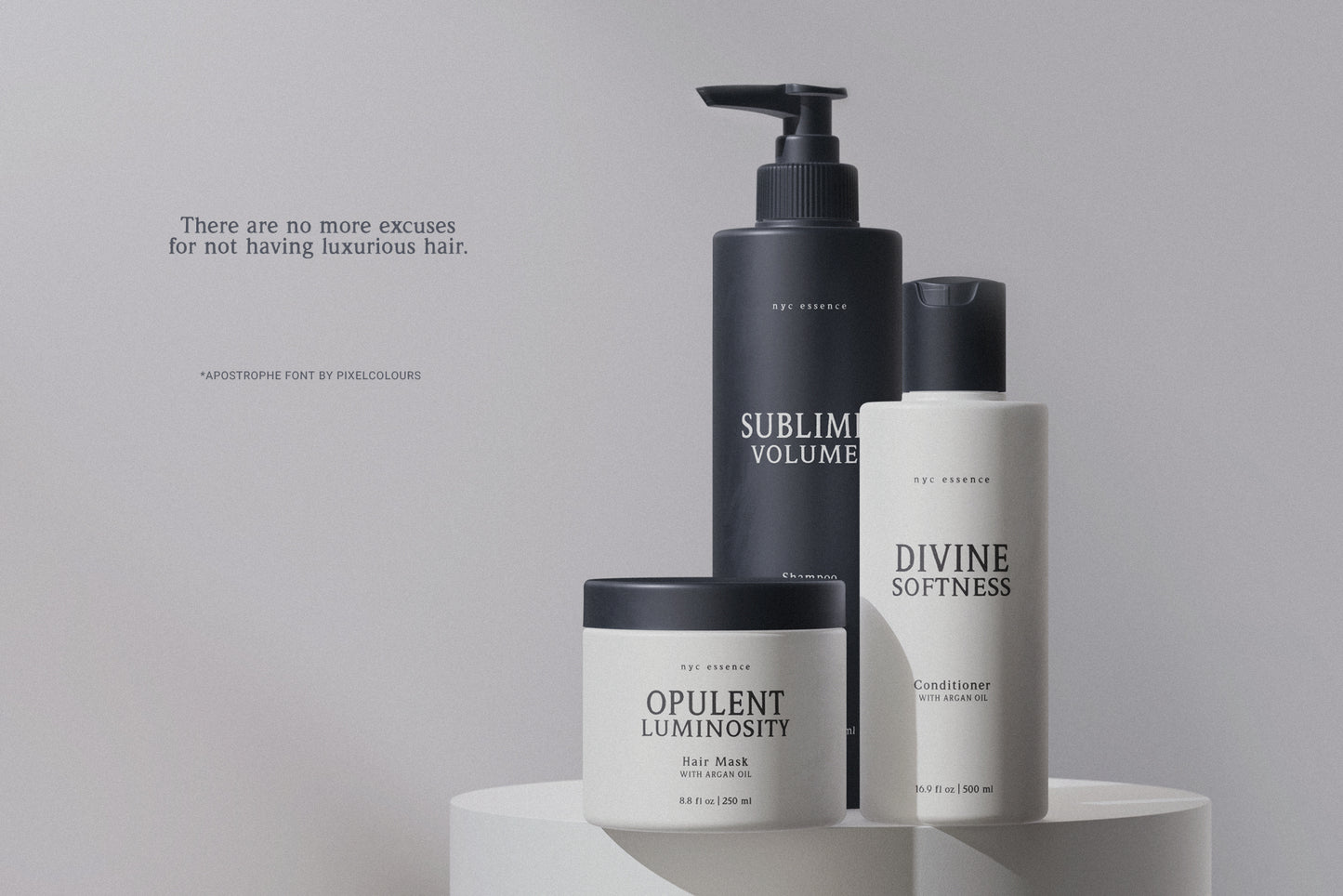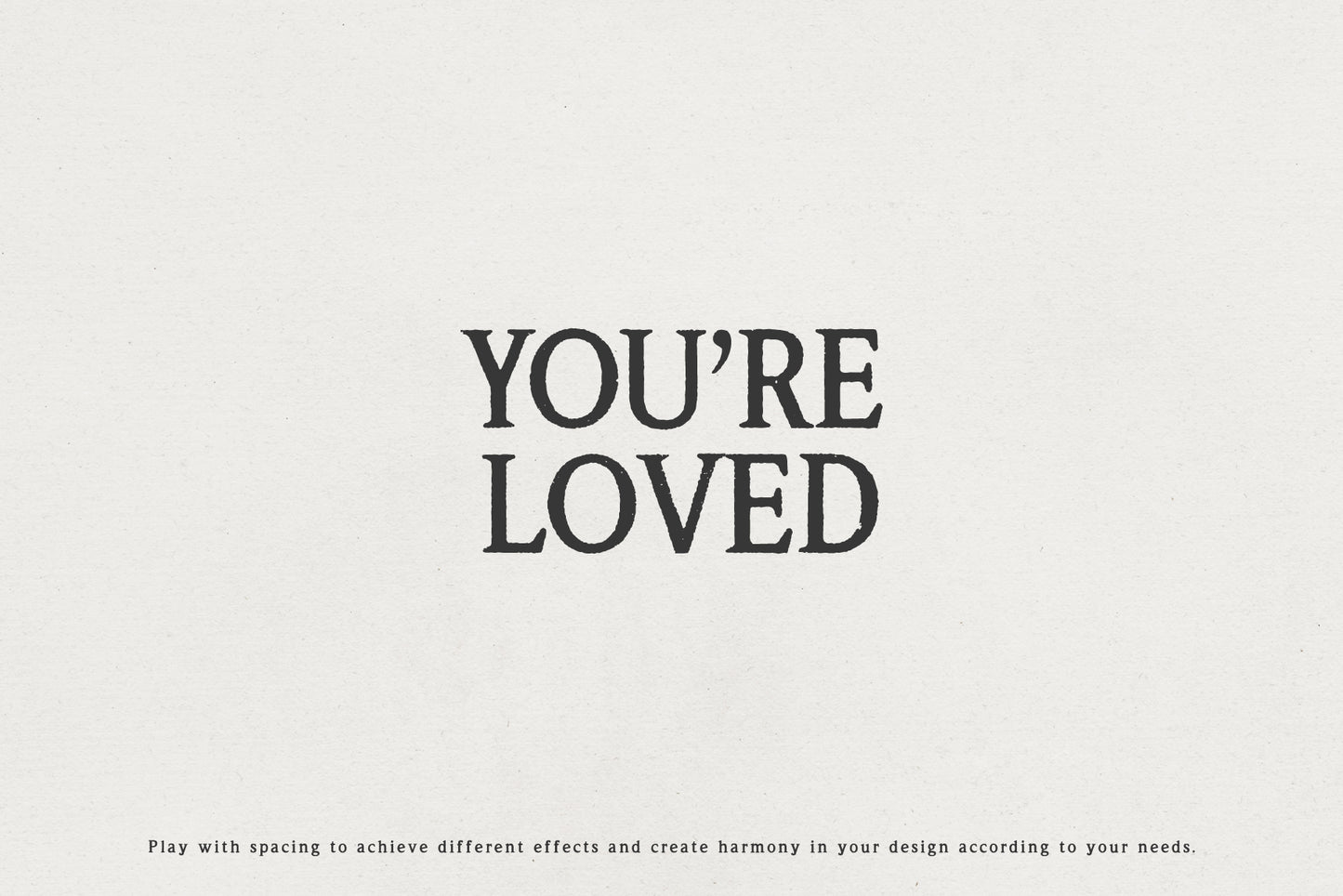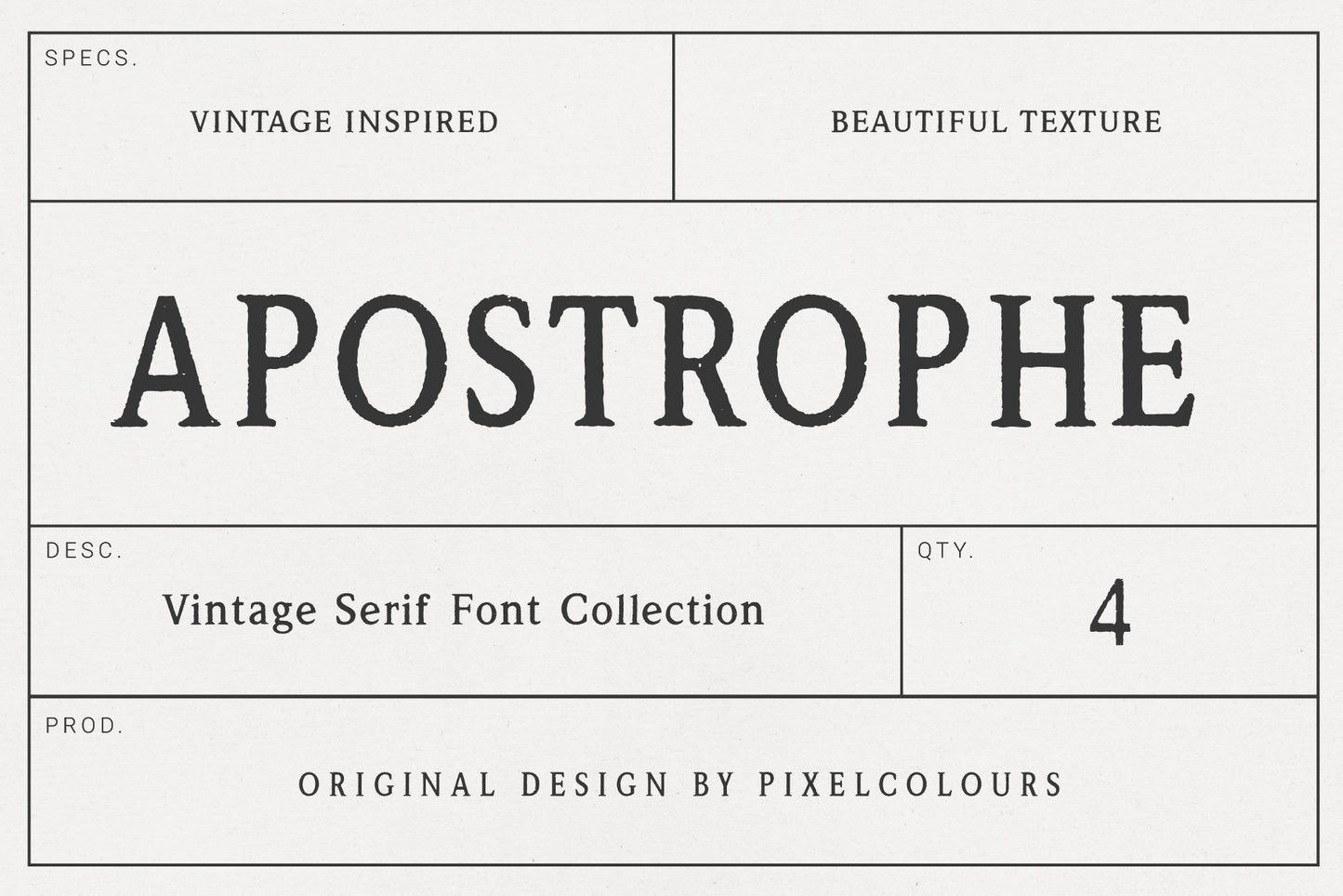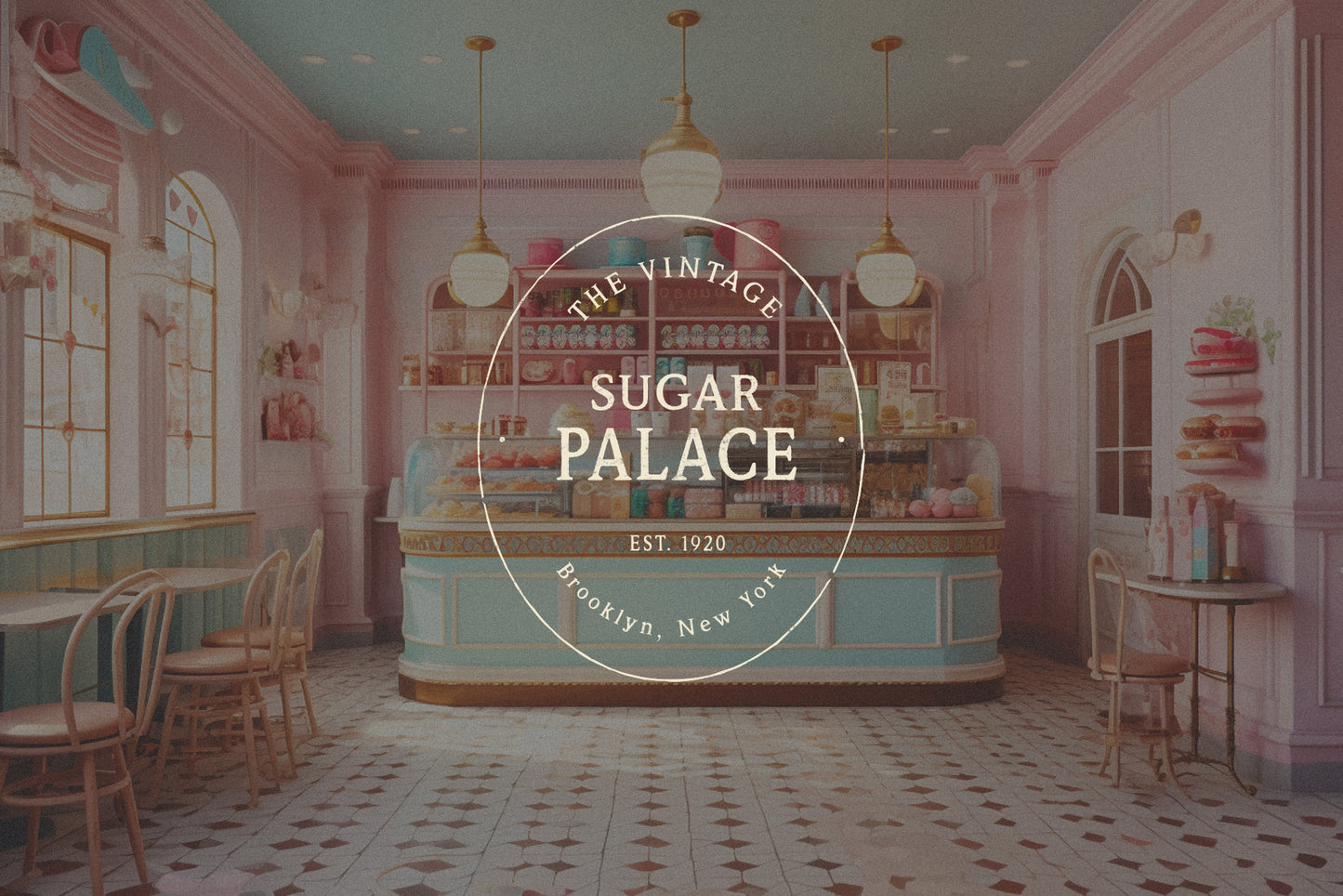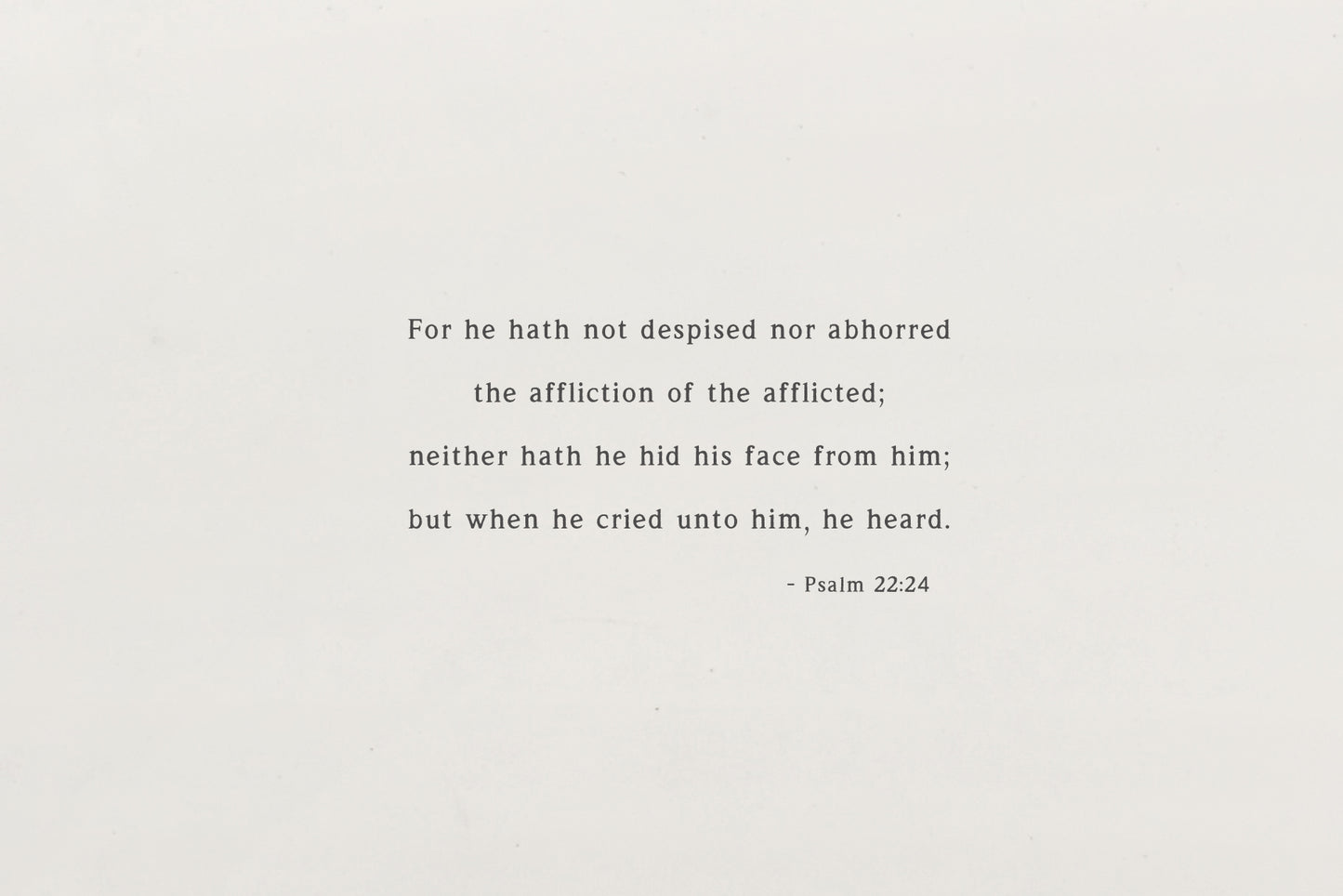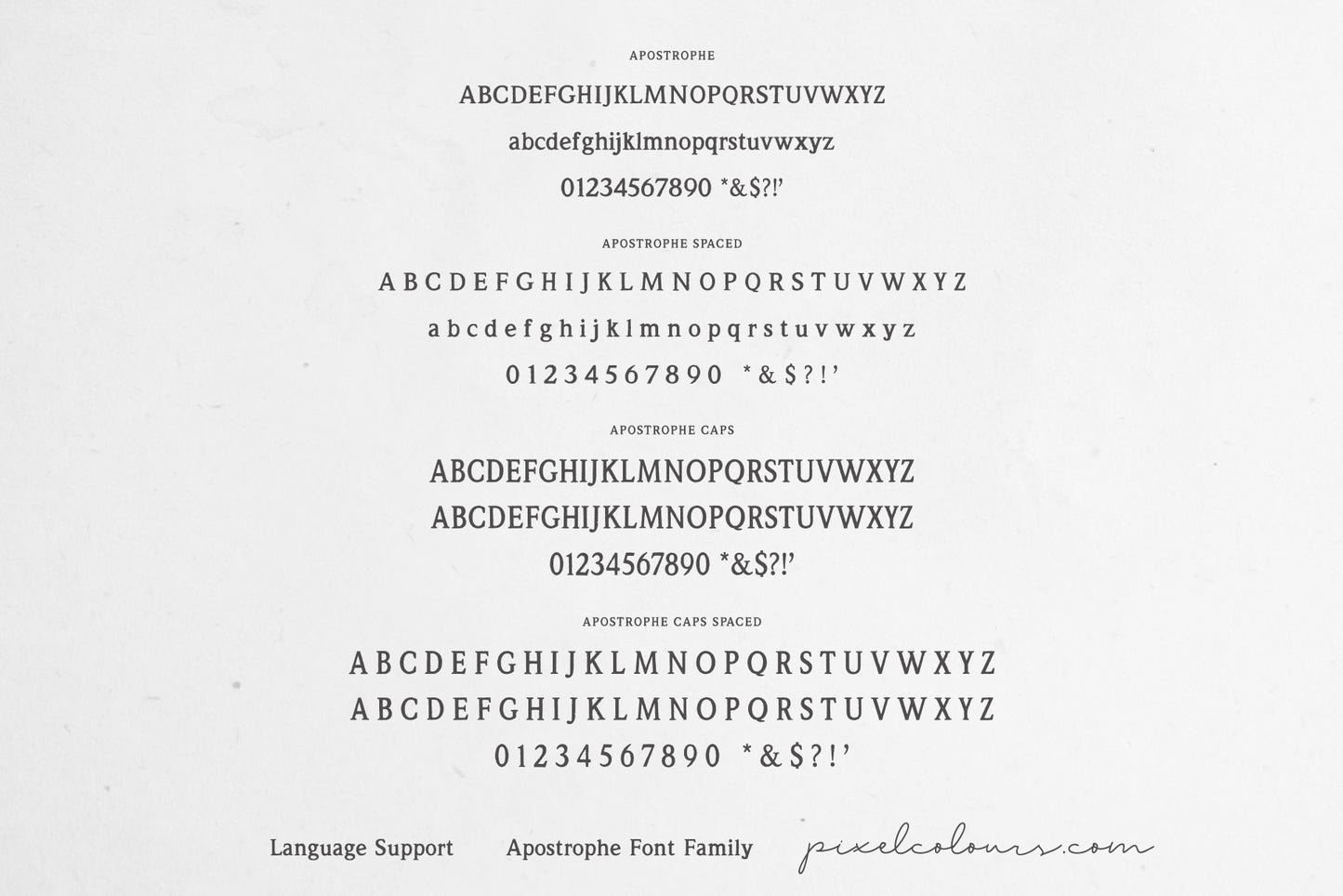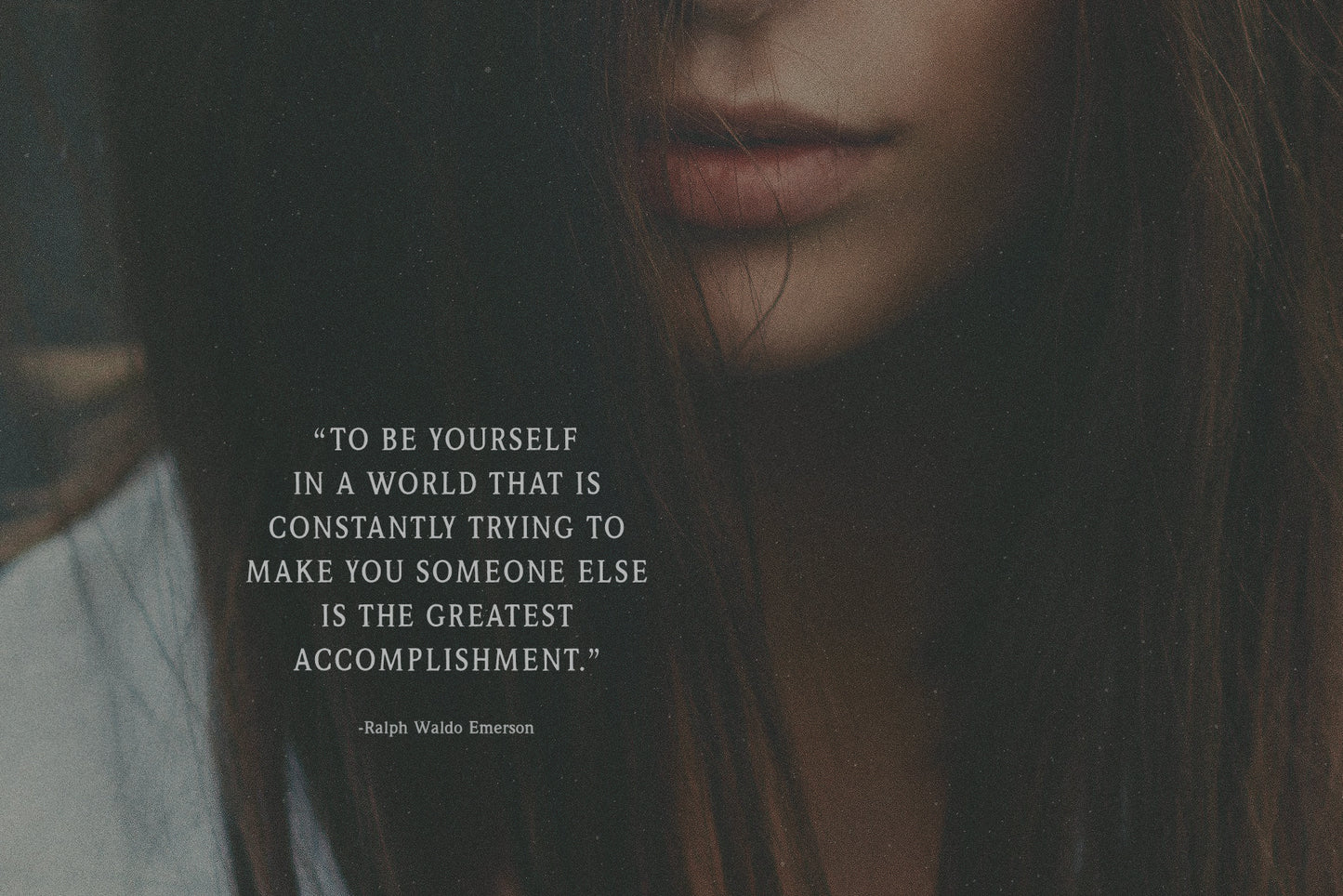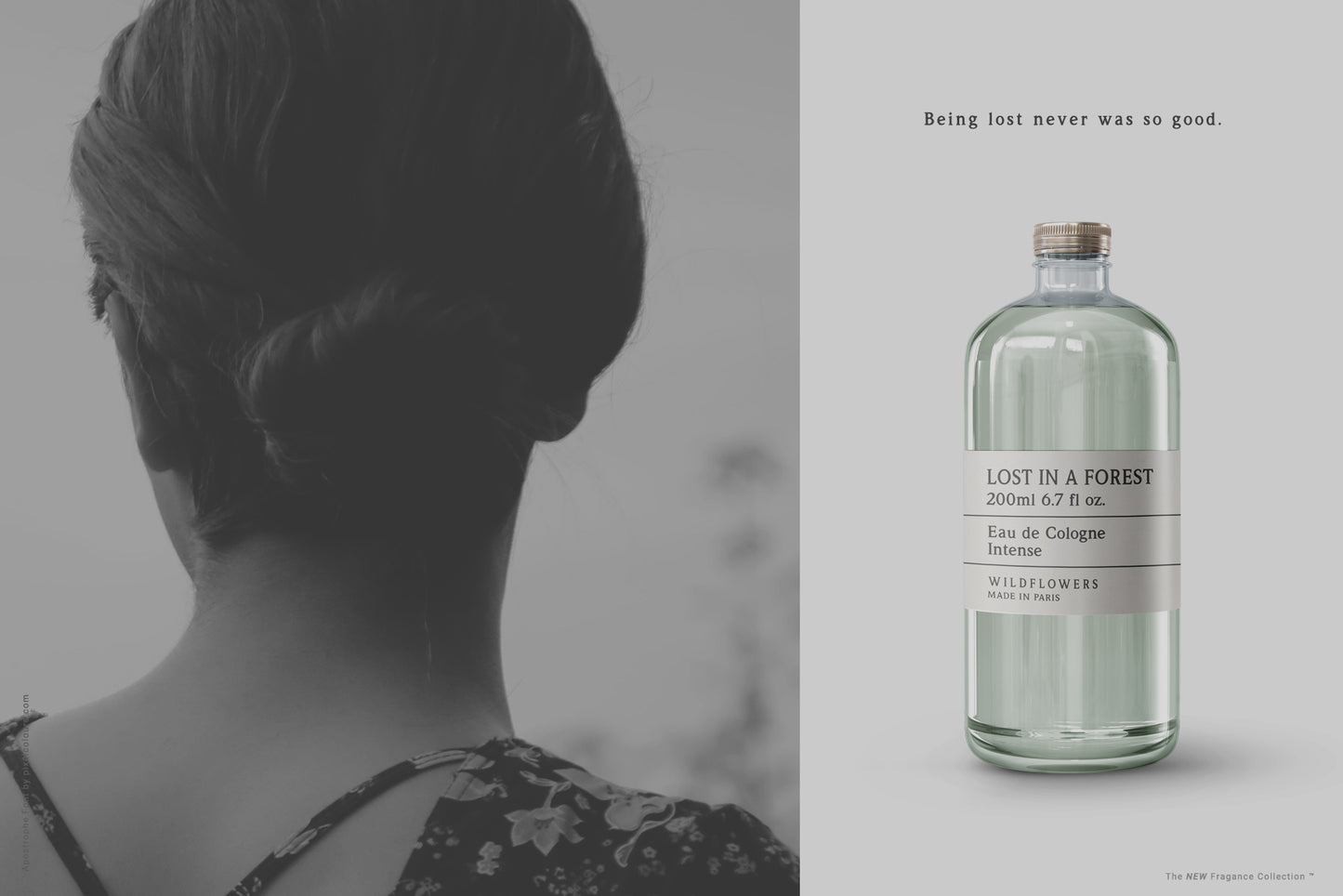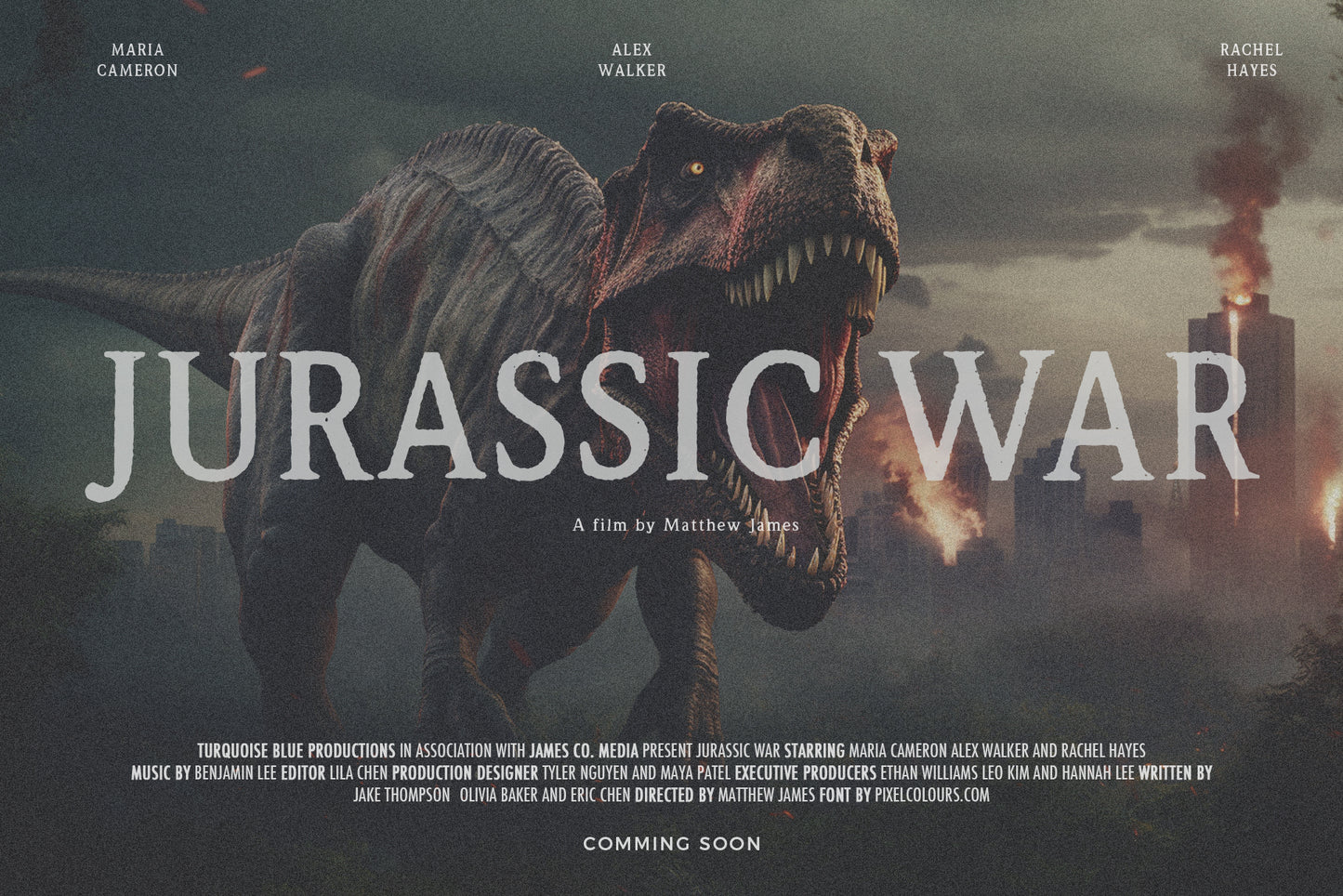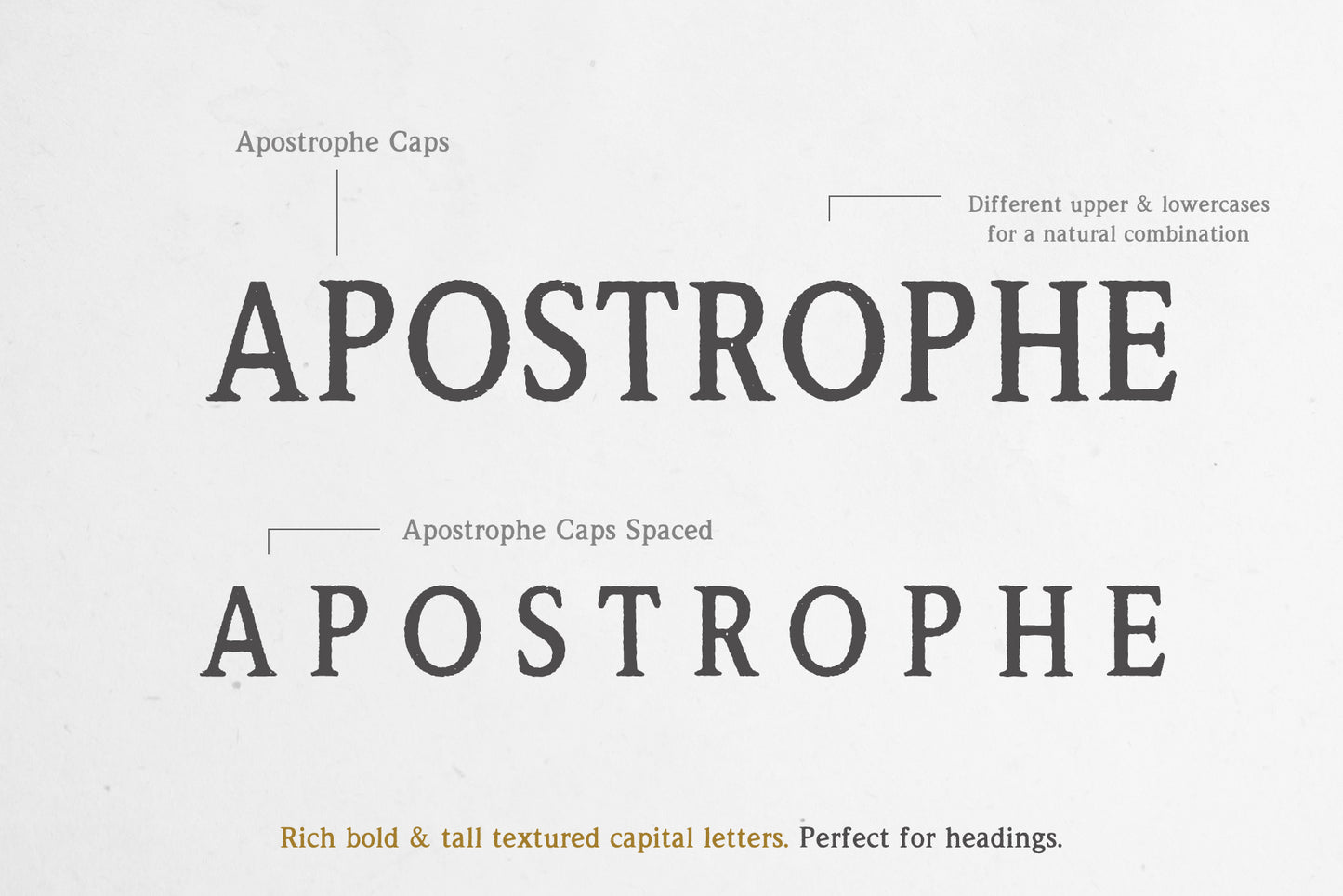
Apostrophe Vintage Serif Font
Apostrophe is a vintage serif font collection inspired in antique prints. Crafted with meticulous attention, each letter showcases imperfections that add character to its design. This typeface is more than just a serif; it's an inspirational journey through the beauty of vintage printing. Add a touch of nostalgia to your designs with this unique and timeless masterpiece.
- Apostrophe Regular: the regular uppercase and lowercase serif font
- Apostrophe Spaced: the regular but more spaced for texts or as a pairing font.
- Apostrophe Caps: rich bold and tall textured capitals. Includes a different alphabet in uppercase and lowercase, perfect for matching letters for a more organic look. Great for headings!
- Apostrophe Caps Spaced: the caps but more spaced.
- Beautiful texture and imperfect lines
- Some letters vary slightly in size or are a little slanted for a natural look.